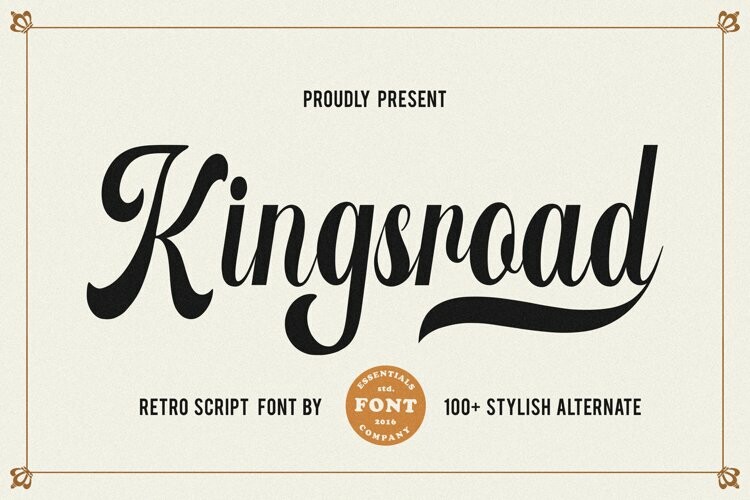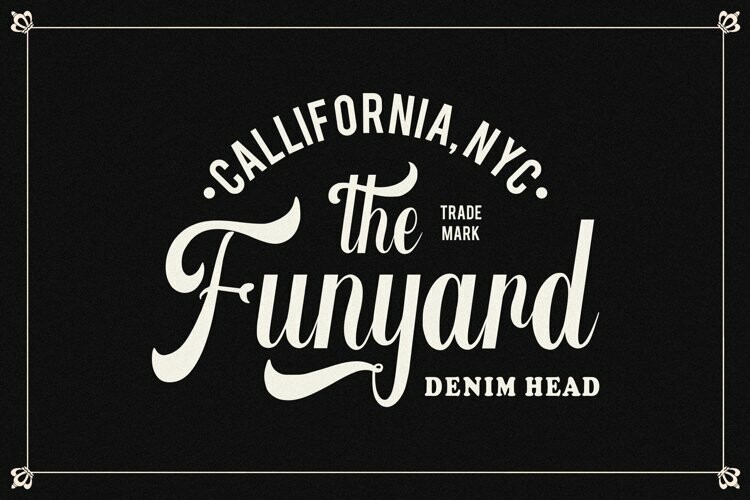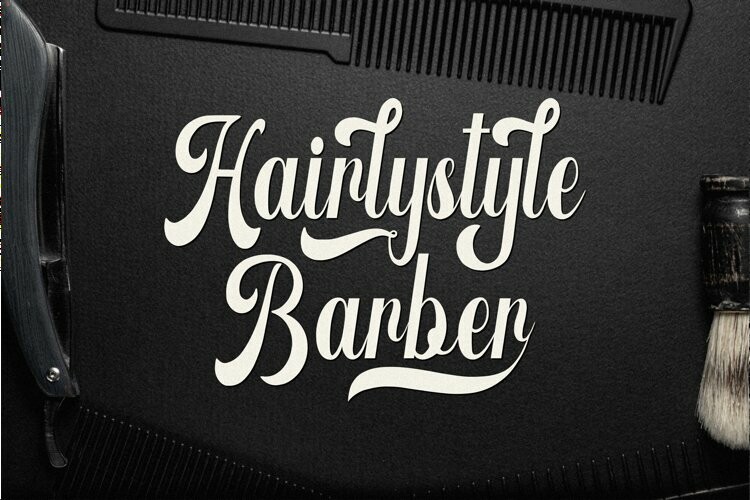
Kingsroad Font
Kingsroad FontKingsroad Is a A Modern Retro Script Font With 100+ Alternate
Kingsroad is perfect for product packaging, branding project, megazine, social media, wedding, or just used to express words above the background.